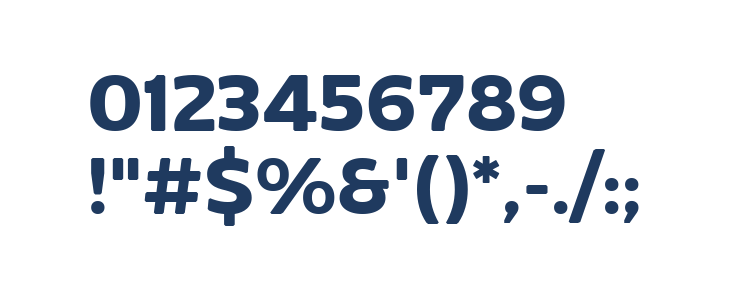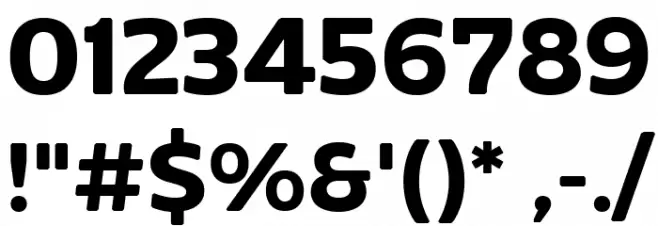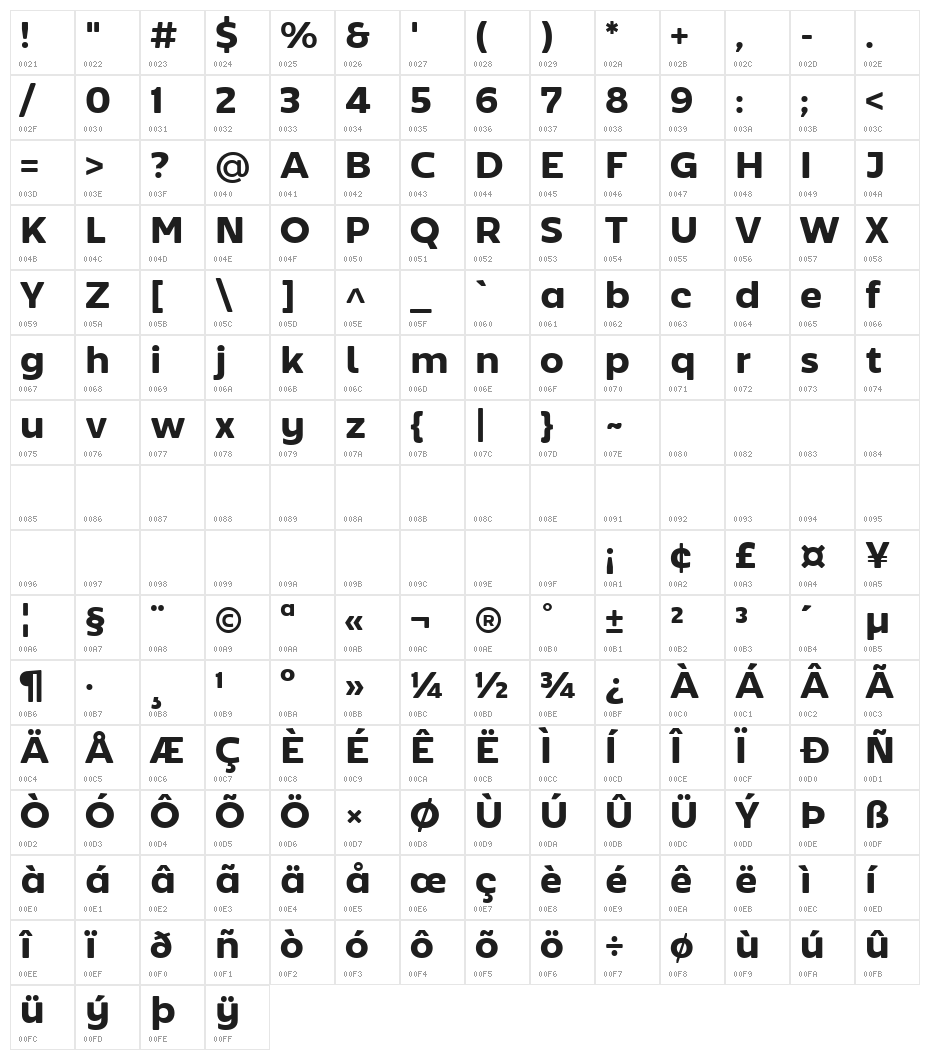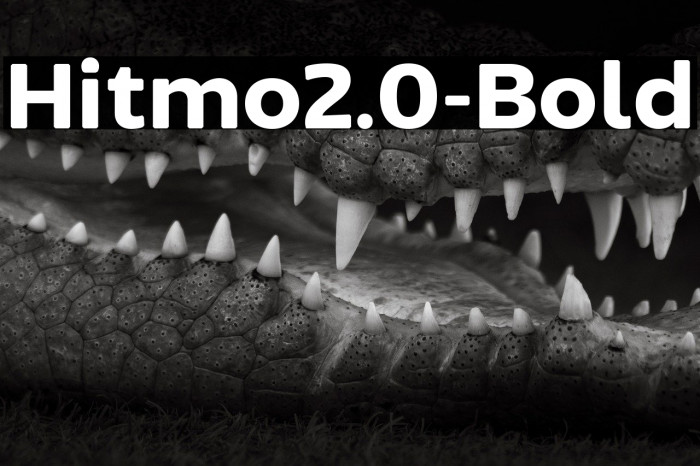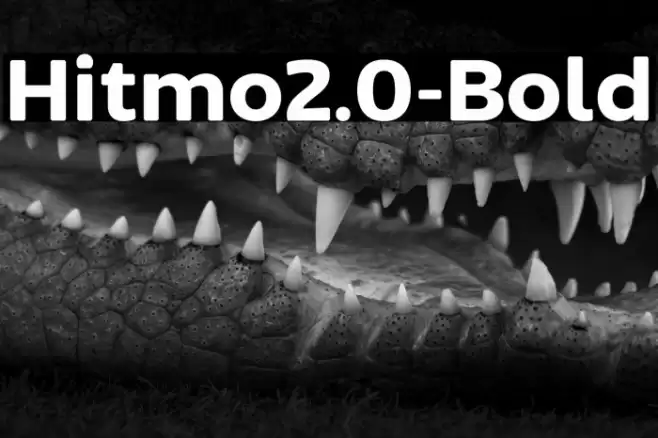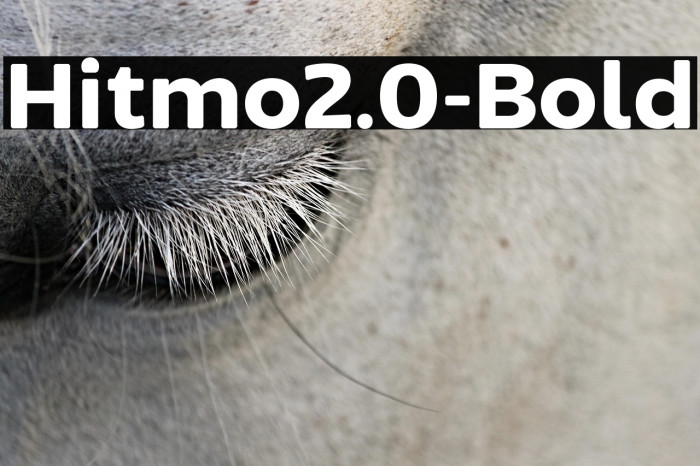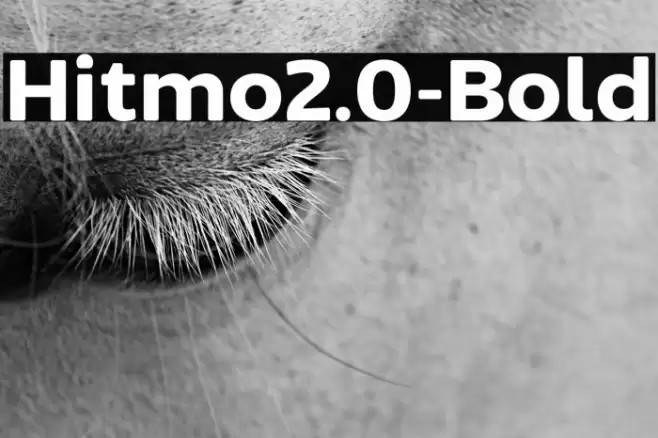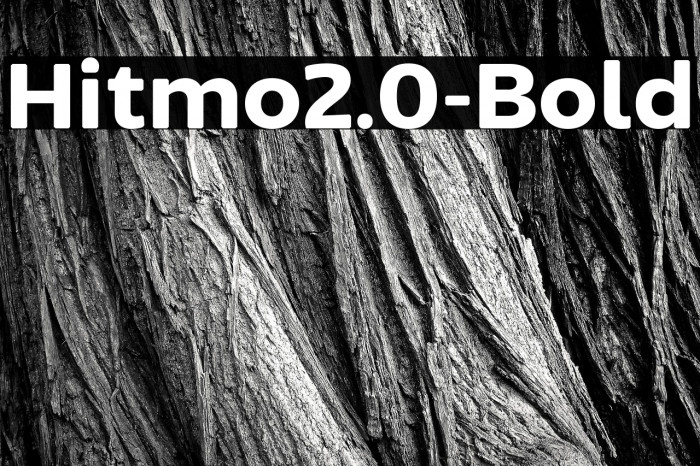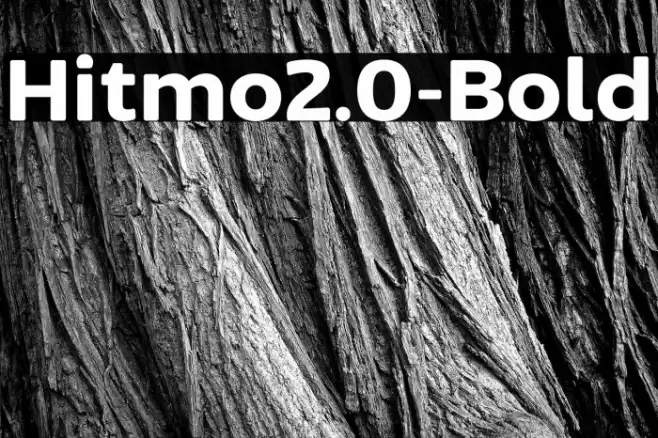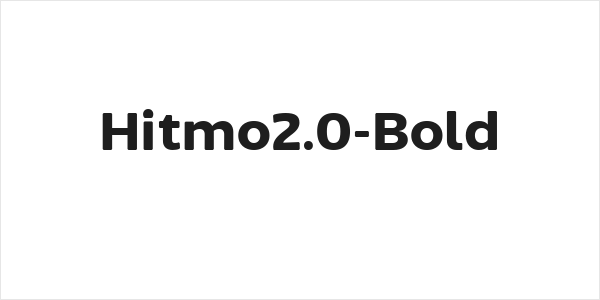
Hitmo2.0-Bold Font
Hitmo2.0-Bold Description
This font exhibits a bold and modern sans-serif style, characterized by clean and uniform strokes. The uppercase and lowercase letters maintain a consistent weight, providing a strong and impactful appearance. The numerals are clear and easily distinguishable, making them suitable for various applications. Special characters are well-defined, enhancing the font's versatility. The overall design is sleek and contemporary, ideal for projects that require a bold statement.